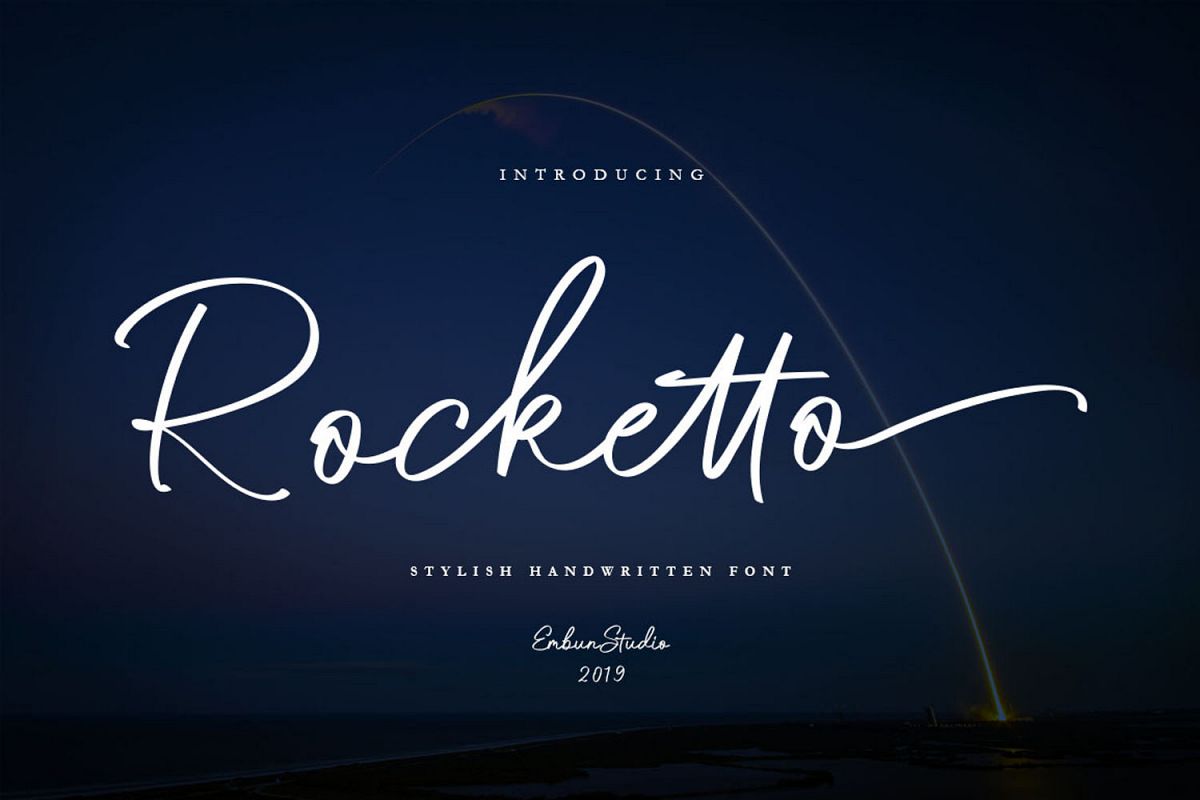
Rocketo Stylish Handwritten
RockettoRegular
Rocketto
Rocketto is Stylish Handwritten Font beautiful ligatures and stylishtic set, suitable for your every project,
such as business card, logo design, blog, wedding invitation, poster, brochure and many more.